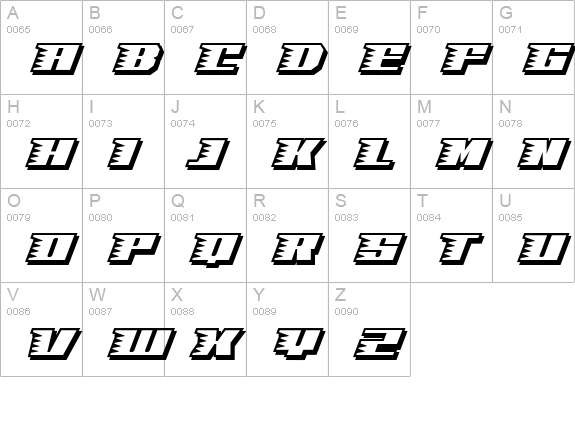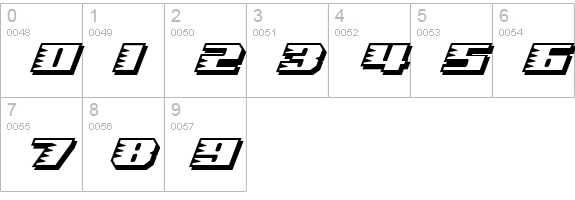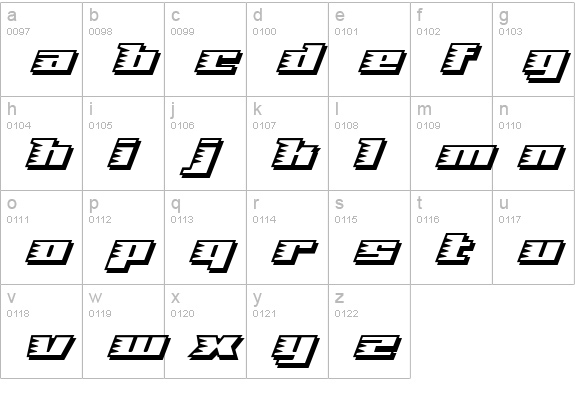
Introducing Speed Solid, a bold and dynamic typeface that is sure to make a lasting impression. This font exudes power and energy, with its sleek lines and solid structure. Its sharp edges and strong strokes give it a modern and edgy feel, perfect for projects that demand attention. Speed Solid is a versatile font that can be used for a variety of purposes, from eye-catching headlines to impactful posters. Its boldness and clarity make it highly readable, even at smaller sizes, ensuring that your message will always be communicated effectively. What sets Speed Solid apart is not only its striking design but also its accessibility. This font is available for free download at FontsMarket.com, making it easily accessible to anyone who wants to add a touch of speed and strength to their designs. Whether you are a graphic designer, a student, or an entrepreneur, Speed Solid is the perfect choice for adding a touch of boldness to your projects. With Speed Solid, you have the freedom to unleash your creativity and create designs that leave a lasting impact. So why wait? Download Speed Solid for free at FontsMarket.com and take your designs to new heights with this powerful and captivating font.